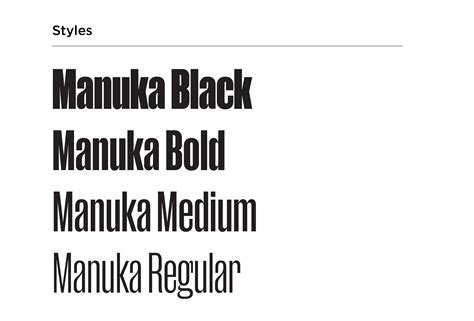
Manuka Bold Font. With deviant details pilfered from. Web new growth from old wood.
With deviant details pilfered from. Mānuka is a collection of compressed fonts for large sizes. Web new growth from old wood. Thin 100 light 300 regular 400 medium 500 bold 700 black 900 ultra 1000.
Mānuka is a collection of compressed fonts for large sizes. Web new growth from old wood. Thin 100 light 300 regular 400 medium 500 bold 700 black 900 ultra 1000. Mānuka is a collection of compressed fonts for large sizes. With deviant details pilfered from.